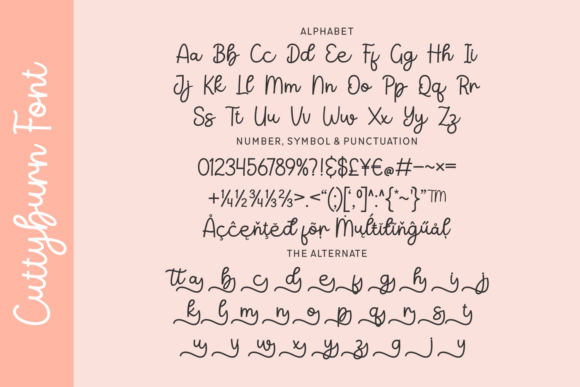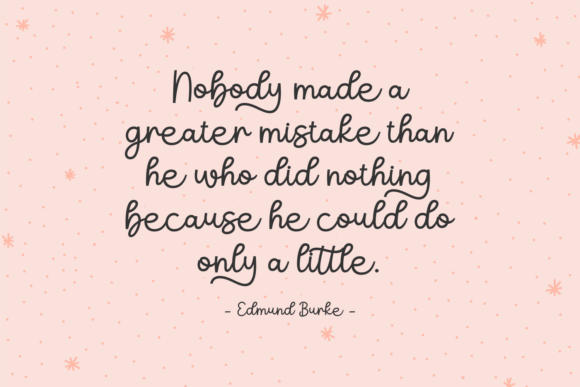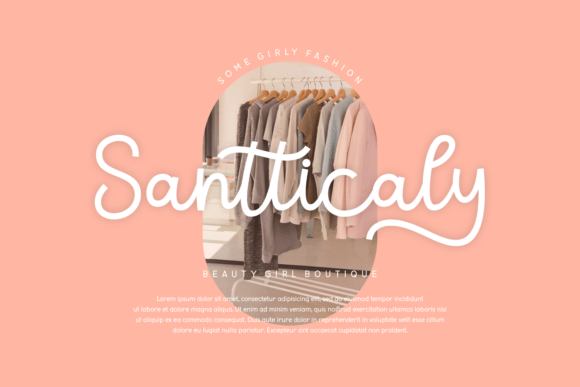
Discover the Charm of Cuttyburn Font: Elevate Your Designs with Elegance and Whimsy
In the world of typography, fonts play a crucial role in conveying the tone and personality of a design. Among the myriad of fonts available, Cuttyburn stands out as a charming monoline script font that has captured the hearts of designers and crafters alike. With its smooth, flowing lines and playful curves, Cuttyburn brings a friendly and approachable vibe to any text, making it perfect for a wide range of creative projects.
The Unique Characteristics of Cuttyburn Font
Cuttyburn is distinguished by its elegant and smooth monoline script style. Each letter is carefully crafted to ensure a seamless flow, creating a sense of continuity and harmony in the text. The font’s playful curves add a touch of whimsy, making it an excellent choice for designs that require a friendly and inviting tone. Whether you’re working on invitations, logos, or personal projects, Cuttyburn’s unique characteristics are sure to elevate your designs.
Perfect for Invitations, Logos, and Personal Projects
Cuttyburn’s versatility makes it an ideal font for various creative applications. For invitations, it adds a touch of warmth and sophistication, making your guests feel special and valued. When it comes to logos, Cuttyburn’s elegant style and playful curves help create a memorable brand identity that stands out from the crowd. Additionally, for personal projects, this font brings a sense of personality and charm, making your creations truly unique.
Why Choose Cuttyburn Font?
There are several reasons why Cuttyburn has become a favorite among designers and crafters:
- Elegant and Playful: Cuttyburn strikes the perfect balance between elegance and playfulness, making it suitable for both formal and casual designs.
- The font’s smooth lines and curves create a warm and inviting tone, perfect for designs that aim to connect with the audience on a personal level.
- Versatile: Cuttyburn can be used in a variety of creative projects, from invitations and logos to personal crafts and digital content.
- Easy to Read: Despite its elegant and cursive nature, Cuttyburn remains highly legible, ensuring your message is conveyed clearly and effectively.
Tips for Using Cuttyburn Font Effectively
To make the most of Cuttyburn’s charming qualities, consider the following tips:
- Pair with Complementary Fonts: Combine Cuttyburn with simple, sans-serif fonts for a balanced and harmonious look.
- Experiment with Colors: While Cuttyburn looks stunning in black, don’t be afraid to experiment with colors that match your brand or design theme.
- Play with Sizes: Utilize different font sizes to create visual hierarchy and emphasize key messages.
- Add Decorative Elements: Consider adding subtle decorative elements, such as flourishes or icons, to enhance the font’s playful and whimsical nature.
Cuttyburn font is a charming and versatile monoline script font that brings a touch of elegance and whimsy to any design. Its smooth, flowing lines and playful curves make it perfect for a wide range of creative projects, from invitations and logos to personal crafts and digital content. With its friendly and approachable vibe, Cuttyburn is sure to elevate your designs and leave a lasting impression on your audience. Whether you’re a designer, crafter, or simply a typography enthusiast, Cuttyburn is a font worth exploring and incorporating into your creative arsenal.